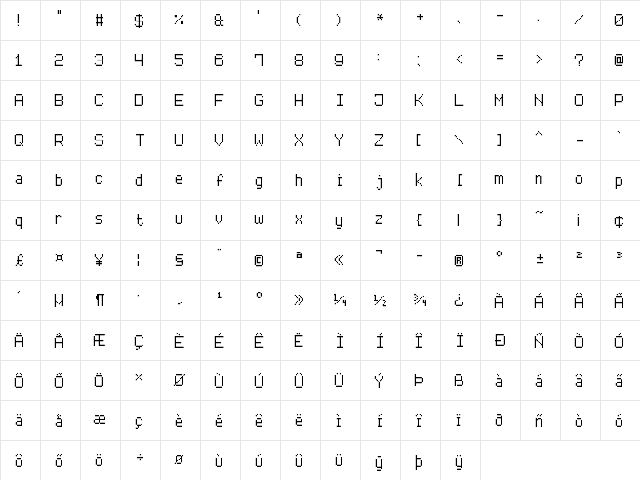
Advanced Pixel-7 Regular
| Foundry | Style-7 |
| Designer | Sizenko Alexander |
Design Context for Advanced Pixel-7 Typeface
Advanced Pixel-7 celebrates the constraints of early digital type, turning pixel geometry into a distinctive and immediately recognisable style.
A natural choice for retro game titles, chiptune music branding, 8-bit UI, and digital nostalgia projects.
Pro Tip: Pair Advanced Pixel-7 with flat colour palettes and simple geometric UI elements to reinforce its digital aesthetic.